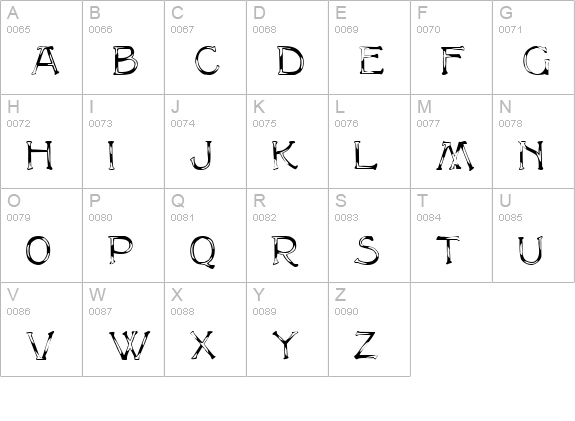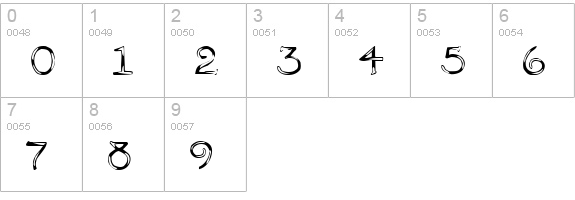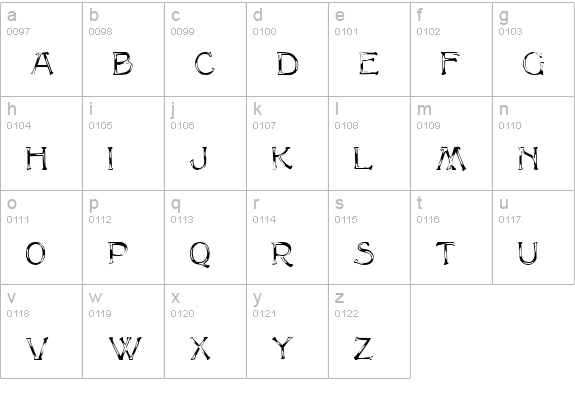
Kapriole font is a modern and stylish typeface that exudes elegance and sophistication. With its sleek design and graceful curves, Kapriole is perfect for adding a touch of class to any project. This versatile font is ideal for a wide range of applications, from branding and marketing materials to invitations and social media graphics. What sets Kapriole font apart is not just its aesthetic appeal, but also its accessibility. This striking font is available for free download at FontsMarket.com, making it easy for anyone to access and use in their designs. Whether you're a seasoned graphic designer or just starting out, Kapriole font offers a high-quality and professional look that will elevate your work to the next level. Incorporate Kapriole font into your projects today and experience the beauty and versatility that this stunning typeface has to offer. Elevate your designs with Kapriole and make a statement with every letter.